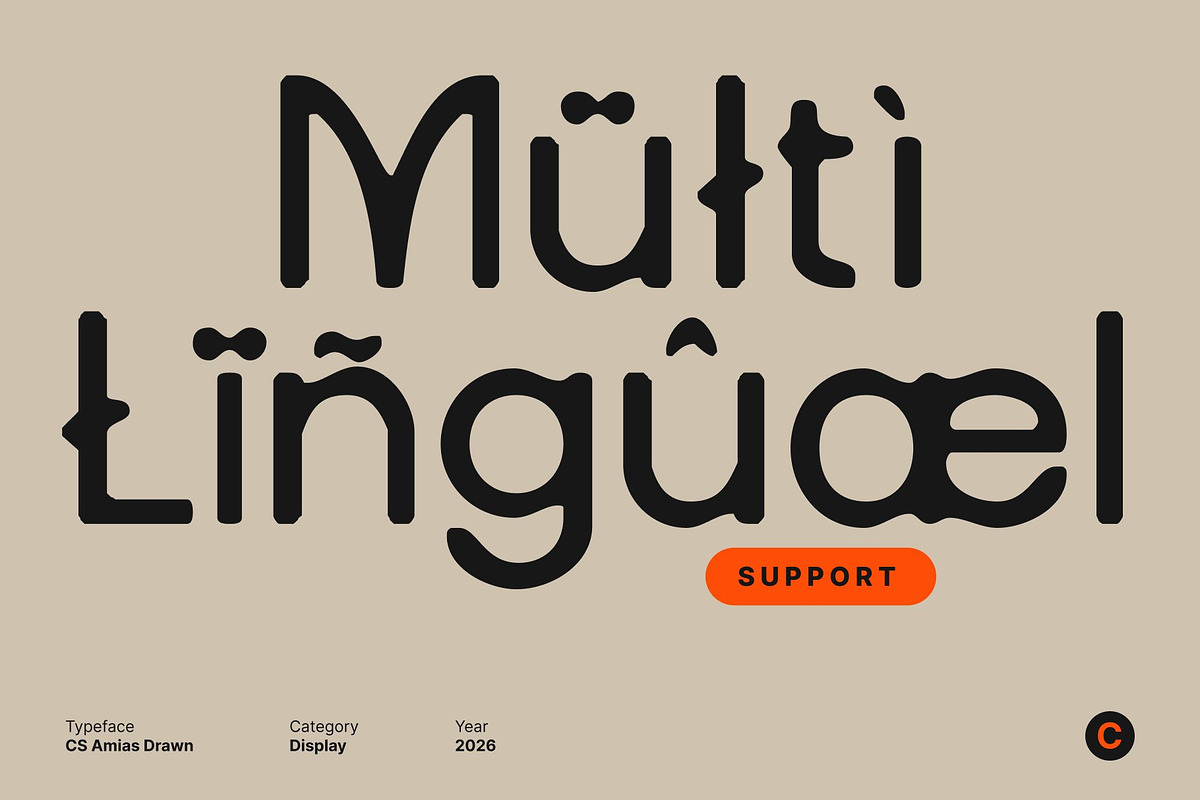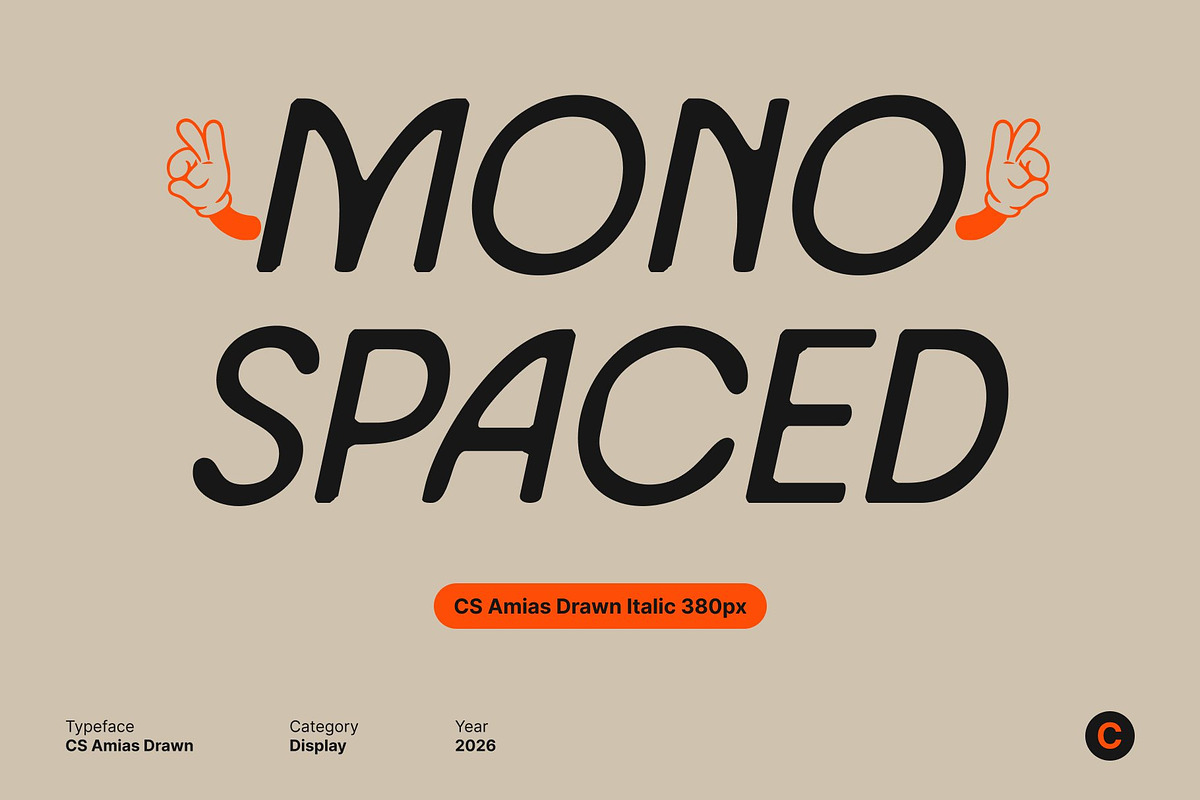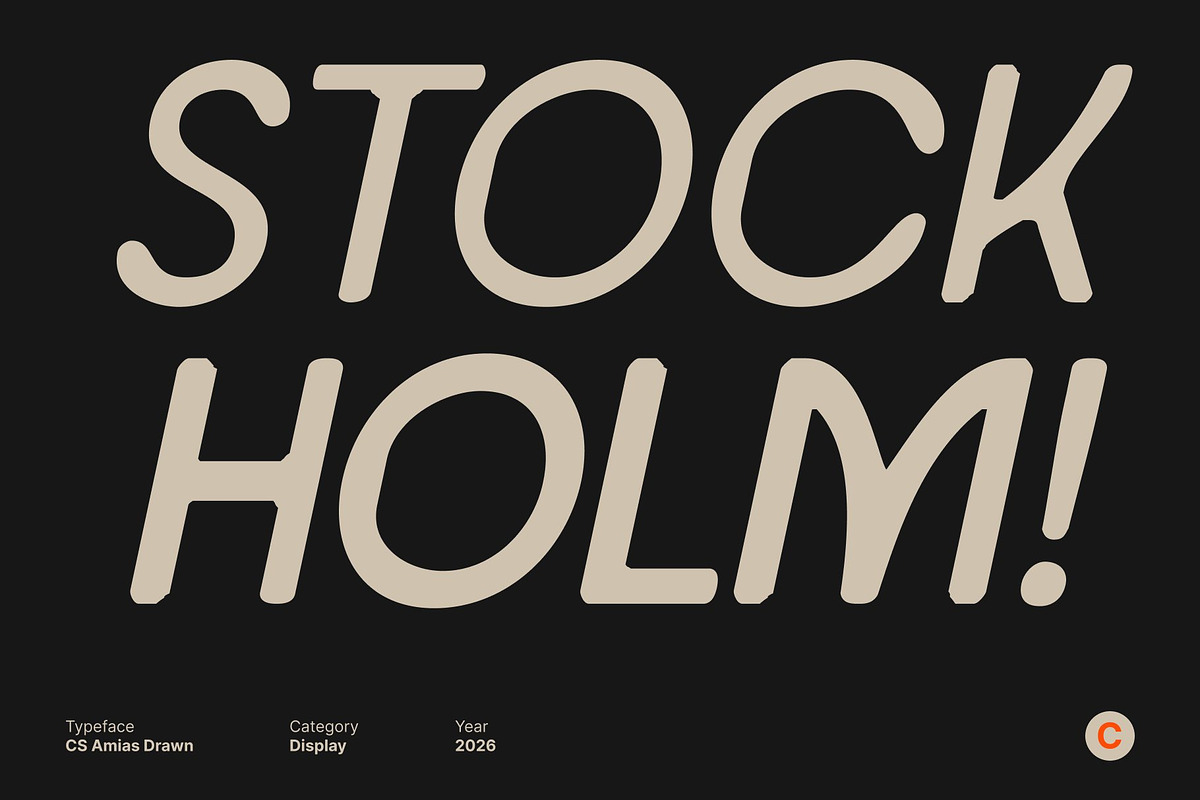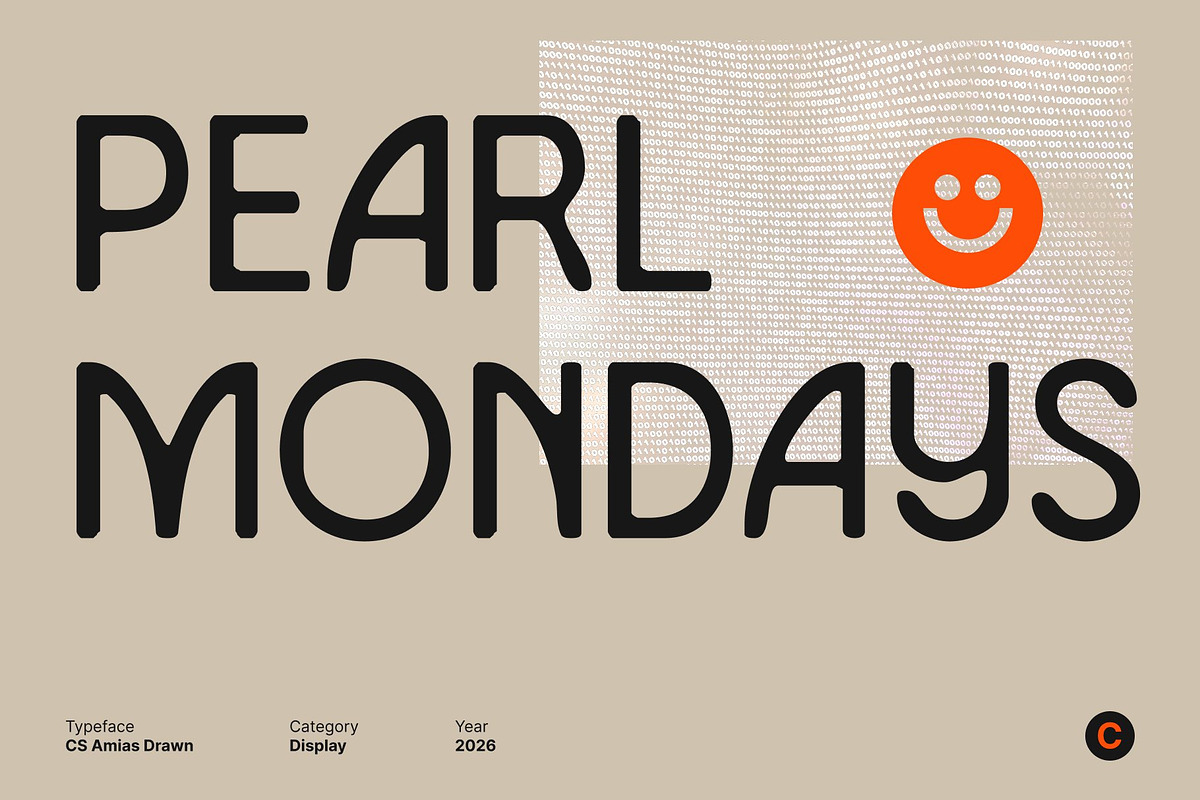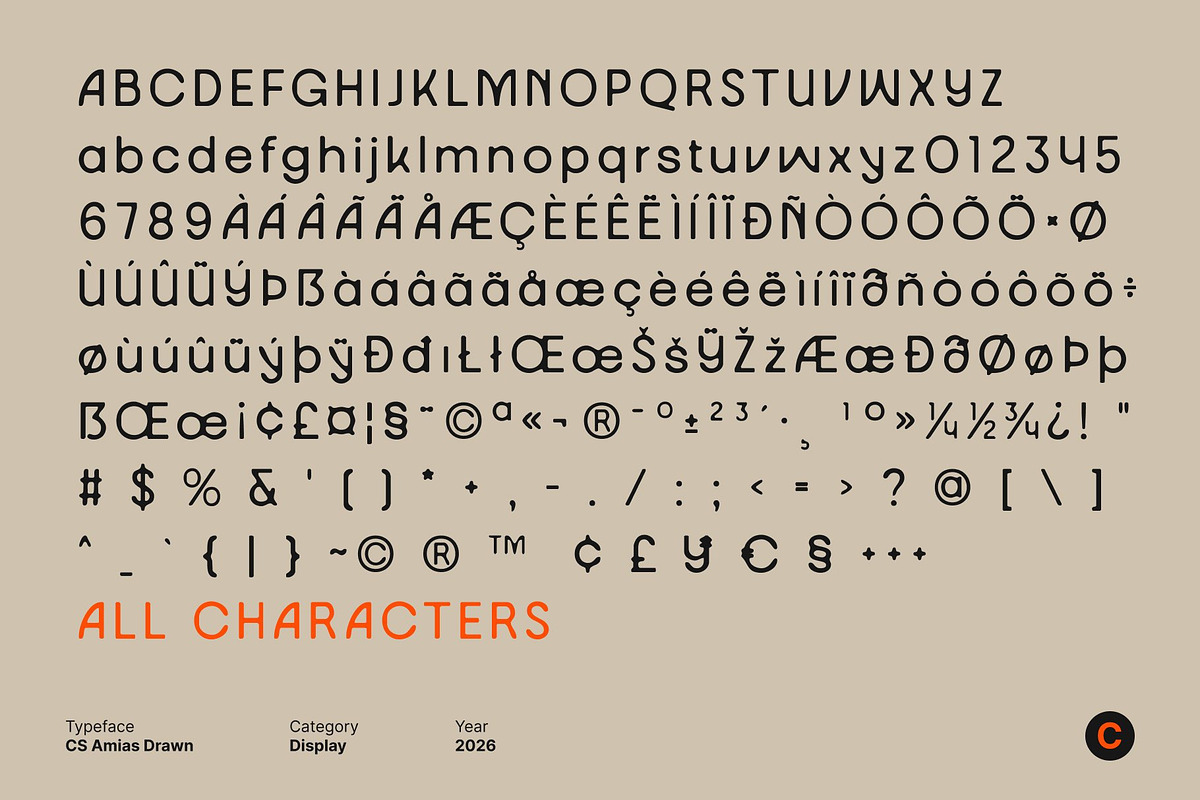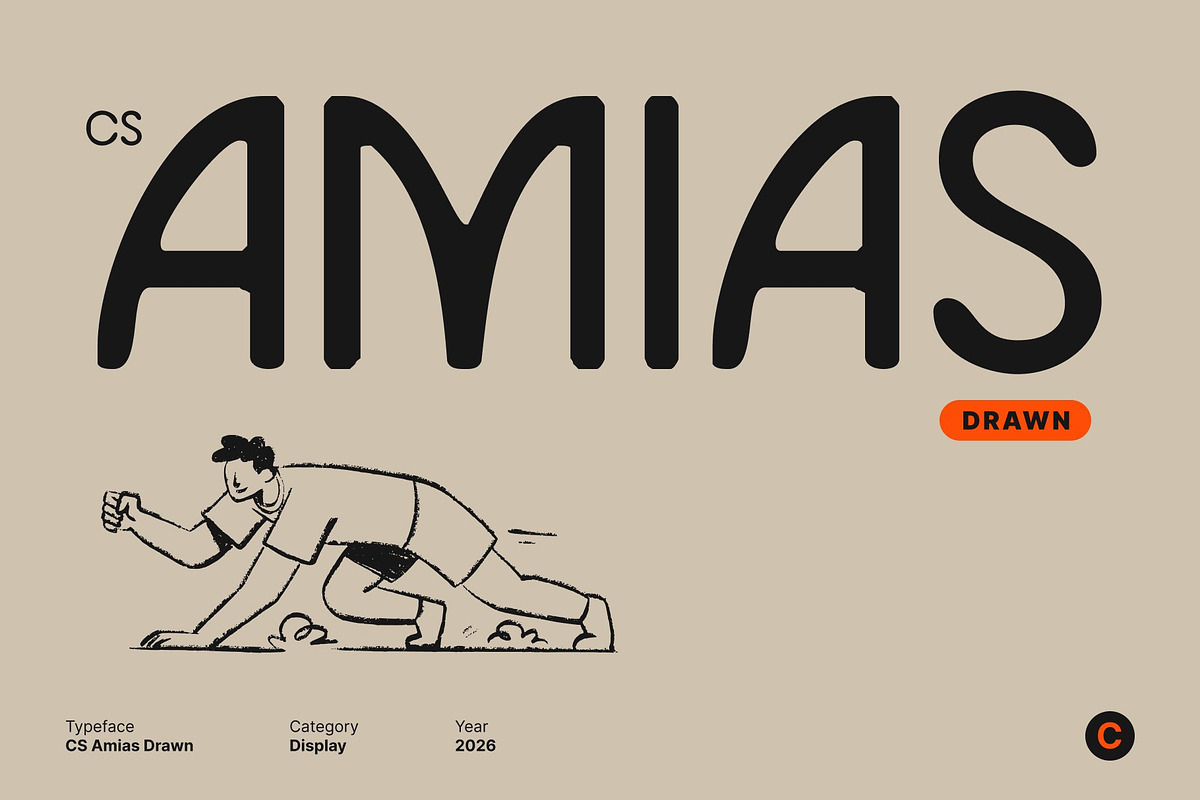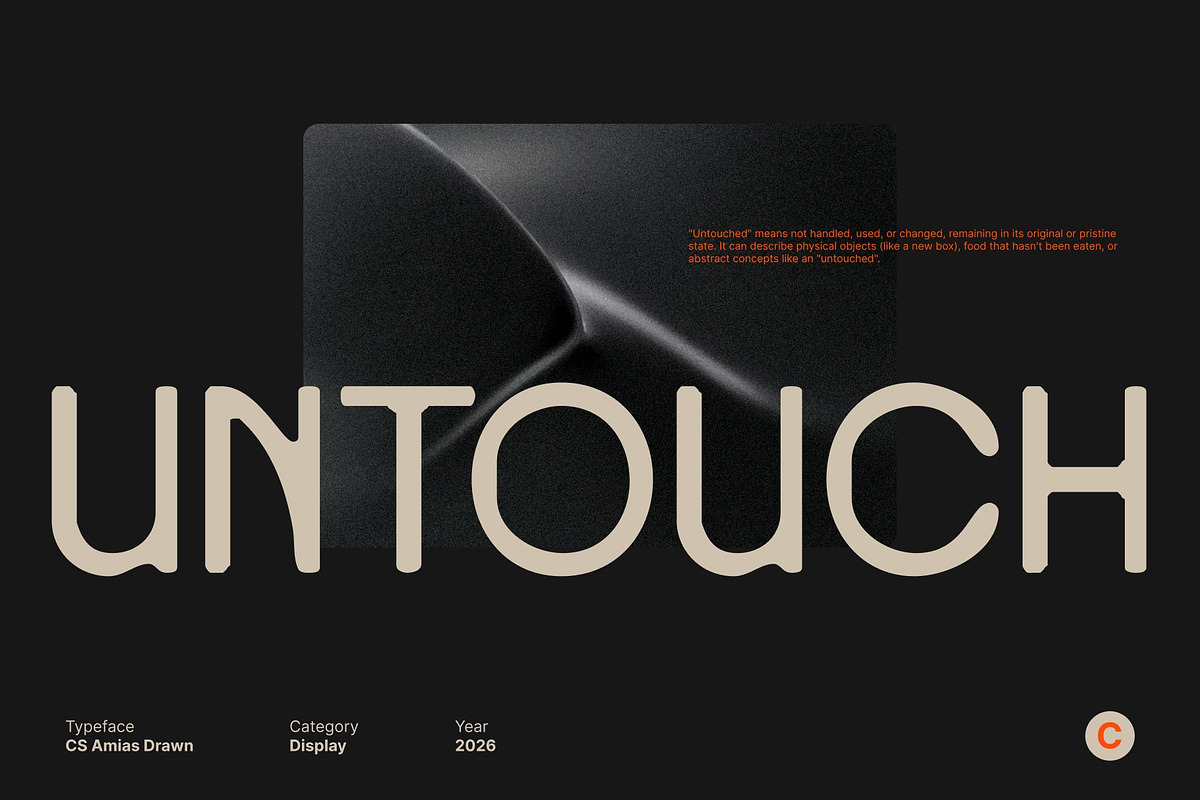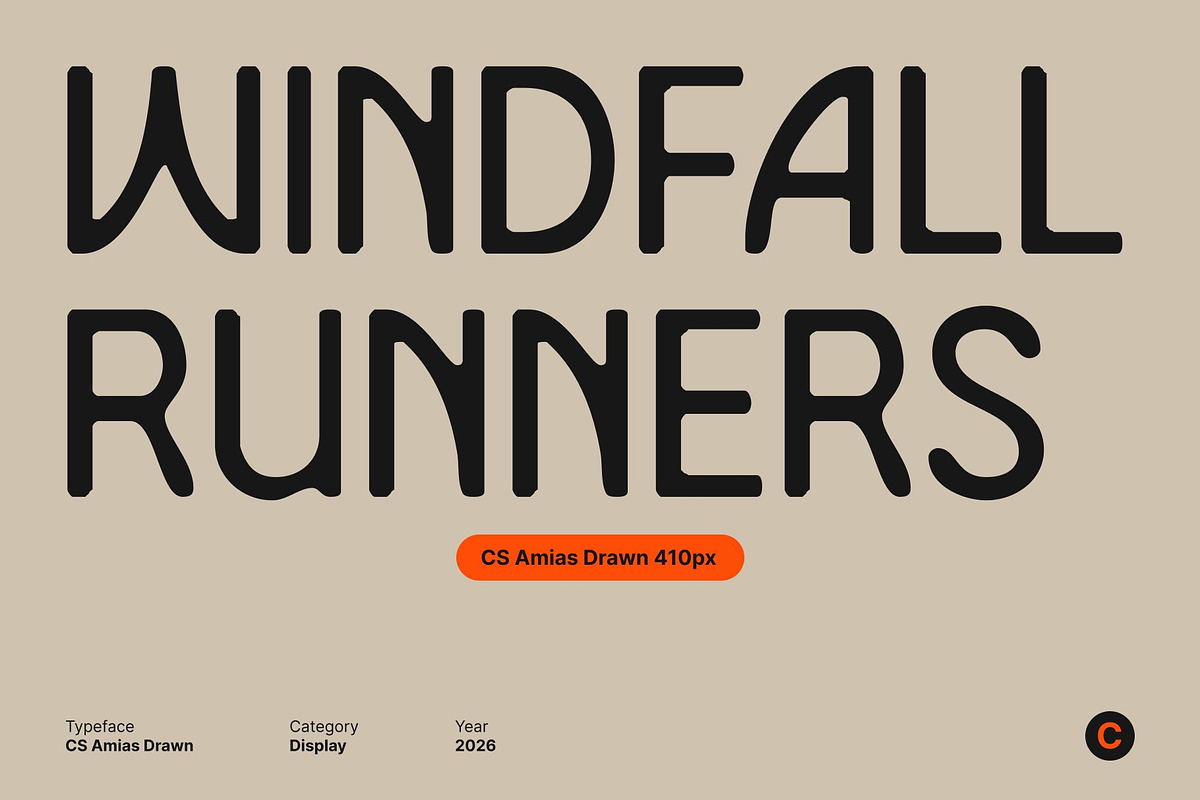
CS Amias Drawn
CS Amias Drawn – Modern Minimalism with Geometric Precision
Modern Sans Serif with Clean Geometry and Drawn Character This is a modern sans serif font that blends precise geometric structure with a subtle hand-drawn finish. Its clean lines and well-proportioned letterforms create a fresh, contemporary look, while the drawn effect introduces a soft, artistic texture that adds warmth and individuality. This combination keeps the font refined and approachable, perfect for modern visual communication.
Minimalist Design with Trendy, Artistic Appeal The minimalist foundation gives this font a sleek and uncluttered appearance, allowing content to feel clear and confident. Gentle geometric influences provide structure, while the drawn texture prevents the design from feeling rigid or cold. The result is a font that feels trendy, creative, and visually engaging without losing its minimalist soul.
Balanced Structure for Versatile Modern Use With balanced spacing and consistent stroke weight, this font offers strong readability across various applications. The clean sans serif form ensures clarity, while the drawn detail adds character and charm. It works beautifully for headlines, subheadings, and supporting text, adapting easily to both digital and print layouts.
Perfect for Branding, Editorial, and Contemporary Design This is ideal for minimalist branding, modern logos, editorial layouts, web design, and promotional materials. Its mix of geometric precision and hand-drawn softness makes it especially suitable for startups, creative studios, lifestyle brands, and modern visual identities that want to feel clean, stylish, and subtly artistic.
- CS Amias Drawn Regular
- CS Amias Drawn Italic